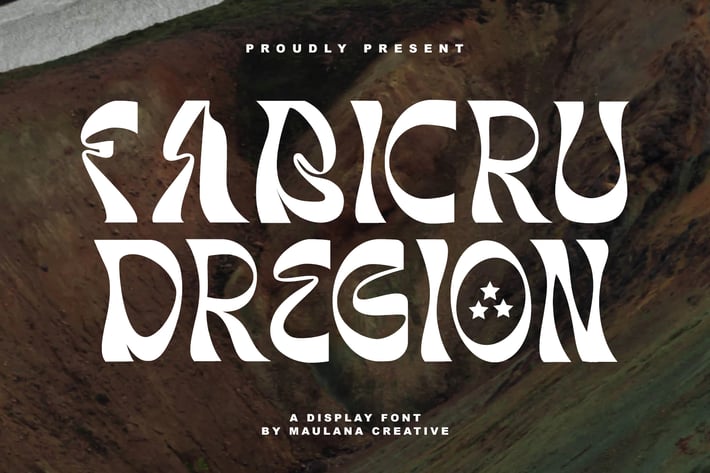
Fabicru Dregion Display Font
Fabicru Dregion display font. Heavy stroke, fun character with a bit of ligatures. To give you an extra creative work. Fabicru Dregion display font support multilingual more than 100+ language. This font is good for logo design, Social media, Movie Titles, Books Titles, a short text even a long text letter and good for your secondary text font with script or serif. Make a stunning work with Fabicru Dregion display font.